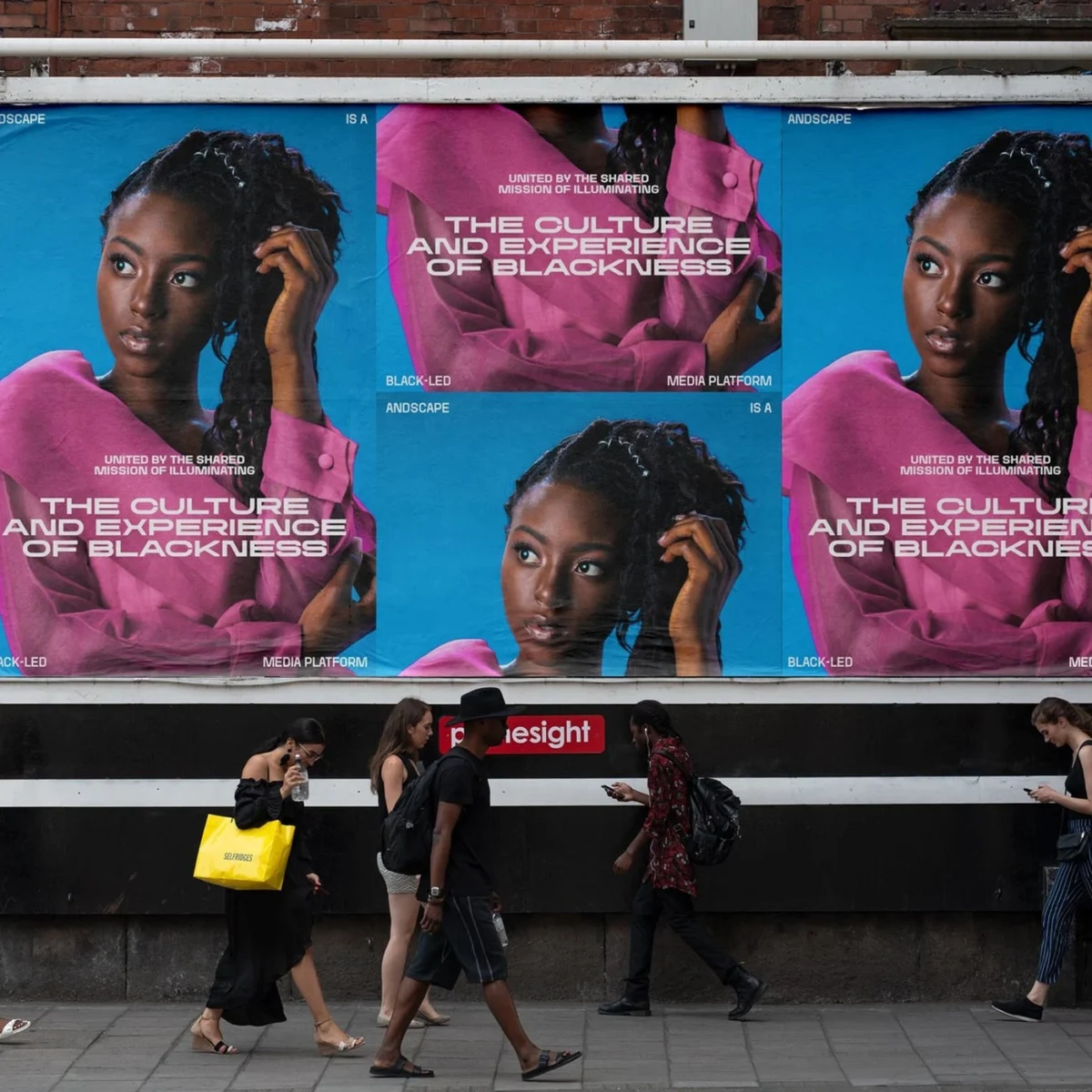
Hamburg, Germany and Barcelona, Spain – On September 4, 2026, the world of media branding and typography design celebrates a significant milestone with the unveiling of the custom typeface system developed by the acclaimed design studio TwoPoints.Net for Andscape, ESPN and Disney’s multifaceted platform dedicated to illuminating Black life and culture. This expansive typographic endeavor, comprising 27 distinct fonts characterized by their innovative elastic horizontal lines, represents a paradigm shift in how digital and print media can achieve unparalleled visual consistency and dynamic adaptability across a vast array of applications. The Andscape typeface system is not merely a collection of fonts; it is a meticulously engineered visual language designed to embody the spirit, resilience, and diverse narratives at the heart of Andscape’s mission, ensuring its message resonates with clarity and impact, regardless of medium or scale.
The Genesis of Andscape: A Platform for Authentic Storytelling
Andscape, formerly known as The Undefeated, was launched in 2016 and rebranded in 2022. It stands as a pivotal initiative within the ESPN and Walt Disney Company ecosystem, dedicated to exploring the intersection of race, sports, culture, and identity. Conceived as a vibrant hub for content that offers nuanced perspectives on Black experiences, Andscape produces a wide range of journalism, commentary, documentary films, television series, and podcasts. Its commitment to authenticity and depth demanded a visual identity that could not only reflect its gravitas but also perform seamlessly across diverse digital interfaces—from mobile apps and websites to social media campaigns—and traditional print materials, including large-format outdoor advertising and intricate editorial layouts. The decision to invest in a bespoke typeface underscores ESPN and Disney’s strategic vision for Andscape as a distinct and powerful voice, requiring a unique visual signature that enhances readability, strengthens brand recognition, and conveys its core values with every character. In an increasingly fragmented media landscape, a custom typeface serves as a cornerstone of brand equity, differentiating a platform from its competitors and fostering an immediate, recognizable connection with its audience.
The Strategic Imperative of Custom Typography in Modern Media
Major media conglomerates like ESPN and Disney increasingly recognize the profound impact of custom typography on brand identity and audience engagement. While readily available commercial fonts offer convenience, they often lack the unique character or specific functional requirements demanded by large-scale, multi-platform brands. A bespoke typeface allows for precise control over every aspect of a brand’s visual voice, from the subtle nuances of letter spacing to the overall rhythm and tone of textual presentation. This level of customization ensures consistency across all touchpoints, preventing the visual dissonance that can arise from using disparate font families or generic typefaces that may not align with a brand’s specific ethos. For Andscape, a platform built on the pillars of cultural authenticity and diverse representation, a generic font would have been a missed opportunity to visually articulate its distinctive identity. The investment in a custom typeface system by TwoPoints.Net signals a deep understanding of visual communication’s role in reinforcing editorial mission and audience connection. It allows Andscape to "speak" in its own unique voice, reinforcing its commitment to its subject matter and its community. Moreover, custom typefaces can offer licensing advantages and a competitive edge, establishing a unique visual asset that cannot be replicated by competitors.
TwoPoints.Net’s Innovative Approach: The Andscape Typeface System
The challenge presented to TwoPoints.Net, a design studio renowned for its innovative and often geometrically inspired typographic solutions, was formidable: to create a comprehensive font system that was not only aesthetically compelling but also technically robust enough to adapt dynamically to an extreme range of applications. The result is the Andscape typeface, an expansive family of 27 styles, meticulously drawn across three main widths—from Condensed to Extended—and spanning weights from Ultra Thin to Extra Bold. This extensive palette provides designers with unparalleled flexibility, allowing them to convey a wide spectrum of moods and emphases, from delicate and understated to bold and authoritative, all while maintaining a cohesive brand identity.
The most groundbreaking innovation within the Andscape typeface system is its unique solution to a perennial problem in responsive typography: maintaining stroke balance and legibility when letters are stretched or condensed across wide web banners or large-format displays. Traditional typefaces often distort, with round forms flattening and strokes thinning or thickening unevenly, leading to a loss of visual integrity. TwoPoints.Net ingeniously addressed this by incorporating "elastic horizontal lines" directly into the font’s design. This means that while round and sharp letterforms maintain their distinctive curves and angles, their horizontal segments are engineered to stretch or compress along a perfectly straight path. For example, letters like ‘A’ and ‘O’ can stretch to extreme widths without their curves turning flat or their strokes losing their original weight and balance. This "built-in flat bars" trick ensures that the letter strokes remain solid and visually consistent at any width, preserving the glyphs’ clean lines and overall aesthetic harmony across all display sizes. This technical feat is a testament to TwoPoints.Net’s deep understanding of both typographic principles and the demands of modern multi-platform branding.
Versatility Across Platforms: From Print to Digital Realms
The utility of the Andscape typeface system extends far beyond merely solving responsive design challenges; it provides a comprehensive visual framework for all of Andscape’s communication needs. In print, the font family forms a strict and highly functional grid, as evidenced by specimen sheets that pair giant, impactful titles with crisp, readable text blocks. The bold typography injects a sharp rhythm into each printed poster, creating a strong visual hierarchy and immediate impact. Narrow styles efficiently pack long words into tight vertical rows, ideal for headlines in constrained spaces, while wider cuts stretch elegantly across expansive outdoor billboards, ensuring maximum visibility and legibility from a distance.
The careful calibration of letter spacing further contributes to its versatility. Close letter spacing in bold titles gives them a firm, commanding presence, ideal for conveying strong messages. Display cuts, designed for maximum visual impact, carry heavy ink weight, making them stand out prominently against white sheets. Conversely, the thin cuts introduce a sense of lightness and airiness, perfect for crowded index lines or supplementary information where clarity and conciseness are paramount. The meticulous alignment of clean baselines ensures that small text harmonizes perfectly with huge stems, maintaining visual order and readability even in complex layouts. This modular grid system keeps complex text arrangements neat and clear, with columns staying perfectly aligned from top to bottom, demonstrating that every glyph size and weight serves a direct and purposeful function on the page.
The design’s robustness is particularly evident in its application to physical print jobs. Imagine large posters adorned with the Andscape typeface, hanging on rough brick walls along bustling city streets. Pedestrians encountering these large boards on old brick walls will find the giant letters catching their eye from far down the block. The typeface pairs striking visuals, such as bright pink shirts against deep blue backdrops, with white extended display words sitting over clean portrait photos. Urban posters leverage these giant letters to frame powerful black-and-white portraits, where the raw paper sheets and street paste paradoxically sharpen the bold graphic print, imbuing the message with an authentic, street-level energy. The deep saturation of ink into the tooth of heavy paper further accentuates the typeface’s powerful presence. TwoPoints.Net’s work thus exemplifies how cutting-edge typography design is instrumental in helping modern media brands establish a strong, memorable, and adaptable visual presence across both traditional and digital media channels.
Perspectives from Stakeholders
While specific quotes from ESPN and Disney officials regarding the Andscape typeface are not publicly available at the time of this publication, one can infer the strategic importance of such a project. A hypothetical statement from an ESPN Brand Director might emphasize: "Our collaboration with TwoPoints.Net on the Andscape typeface has been instrumental in solidifying the platform’s unique visual identity. Andscape is about amplifying diverse voices and narratives, and this typeface system, with its incredible flexibility and innovative engineering, allows us to communicate those stories with unparalleled consistency and impact across every medium, from a tweet to a billboard. It truly embodies the spirit of our brand."
Similarly, the design team at TwoPoints.Net would likely articulate their creative philosophy and technical achievements. A representative quote from one of the studio’s founders could highlight: "The Andscape project was a fascinating challenge, pushing the boundaries of responsive typography. Our goal was to create a typeface that felt both robust and incredibly adaptable, a visual chameleon that could maintain its integrity no matter how it was stretched or condensed. The elastic horizontal lines are a direct response to the demands of modern multi-platform branding, ensuring that Andscape’s message always looks pristine and powerful. We are proud to have contributed to a platform that champions such important cultural narratives." These inferred statements underscore the mutual understanding of the project’s significance and the successful realization of its ambitious design goals.
Broader Implications and Industry Trends
The Andscape typeface by TwoPoints.Net is more than just a successful design project; it serves as a powerful case study for several broader trends in media, branding, and typography. Firstly, it highlights the increasing strategic importance of custom typefaces as proprietary brand assets. In an age where digital content is consumed across countless devices and screen sizes, a unique and functionally optimized typeface provides a competitive advantage that generic fonts simply cannot match. It contributes significantly to brand recall and recognition, critical for platforms like Andscape aiming to establish a distinct voice in a crowded digital landscape.
Secondly, the project exemplifies the growing demand for truly responsive design solutions that extend beyond layout and imagery to typography itself. TwoPoints.Net’s innovation with elastic horizontal lines sets a new benchmark for how typefaces can be engineered to maintain aesthetic and functional integrity across extreme variations in scale and aspect ratio. This technical achievement has implications for future typeface design, pushing the industry towards more dynamic and adaptable systems that can seamlessly bridge the gap between static print and fluid digital environments.
Finally, this collaboration underscores the commitment of major media organizations like ESPN and Disney to investing in platforms like Andscape, which are dedicated to specific cultural narratives. The visual identity, spearheaded by this bespoke typeface, is an integral part of this commitment, ensuring that the platform’s message is conveyed with the utmost professionalism, authenticity, and visual strength. It demonstrates that meaningful content deserves an equally meaningful and meticulously crafted visual presentation. The Andscape typeface, therefore, is not just a triumph of design; it is a testament to the power of visual language in shaping identity, conveying message, and engaging audiences in the complex tapestry of modern media.